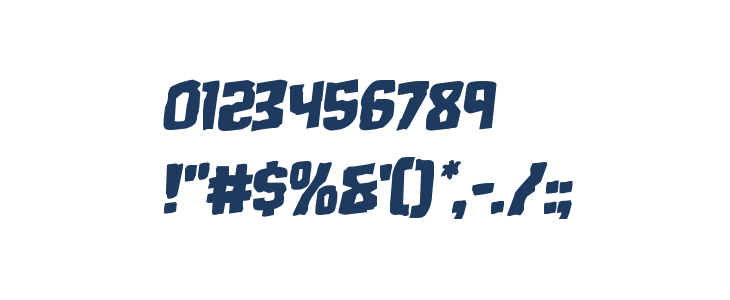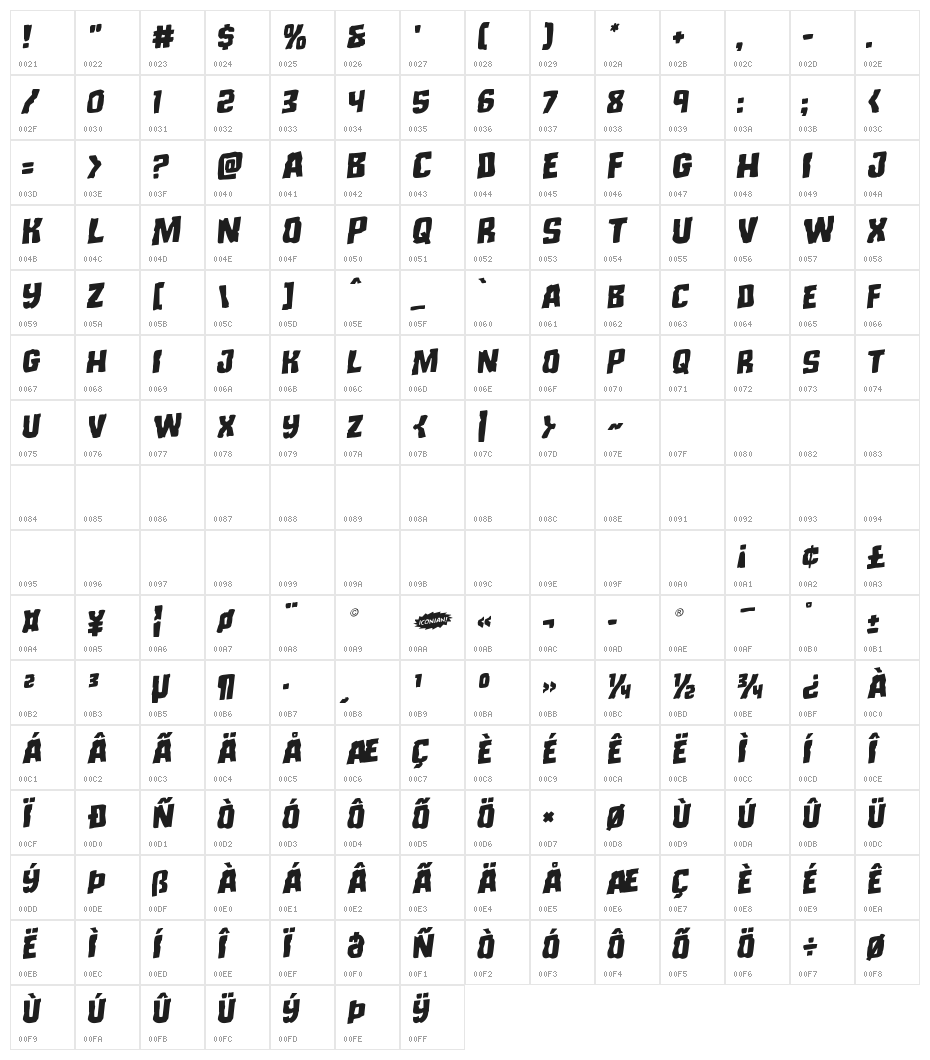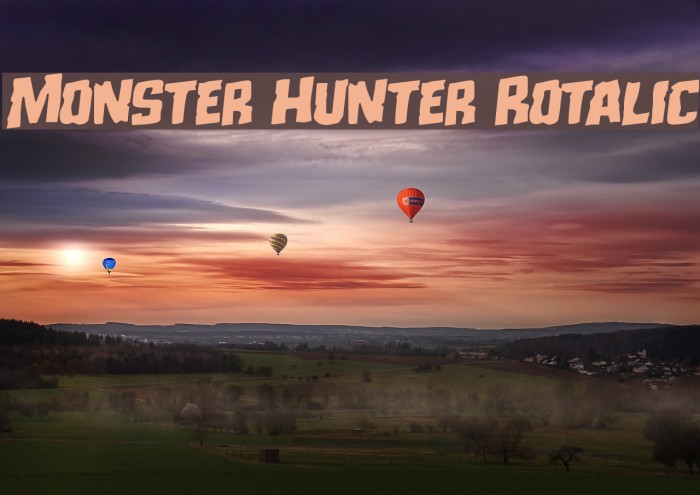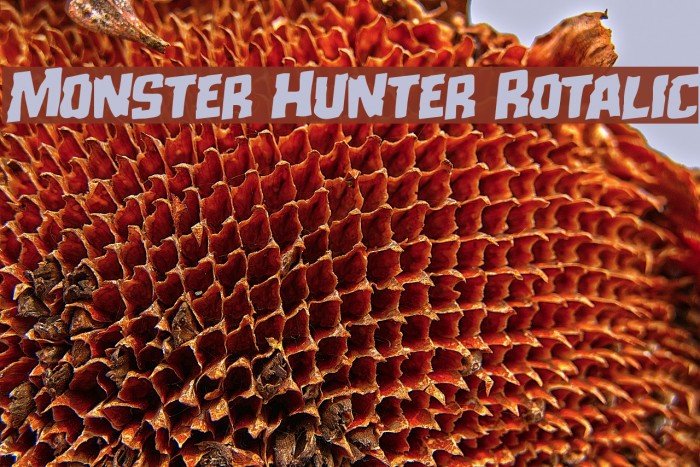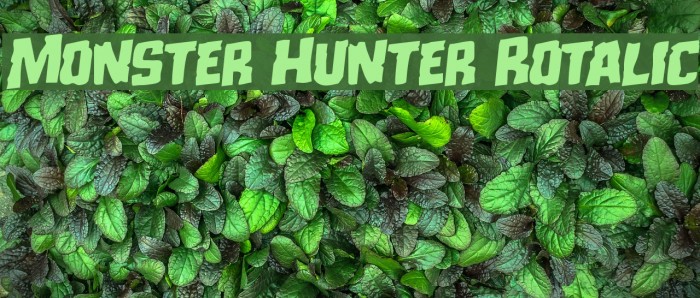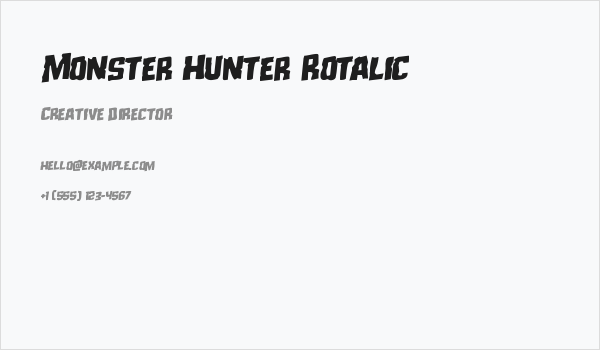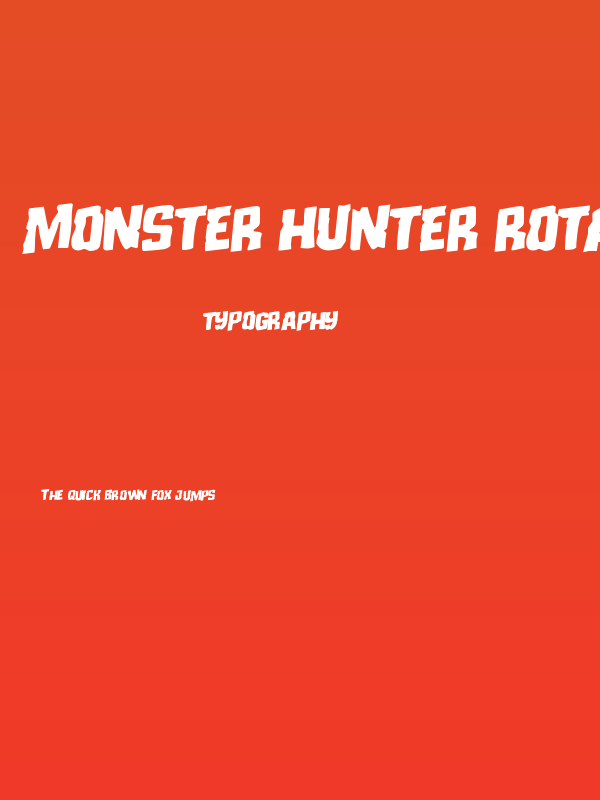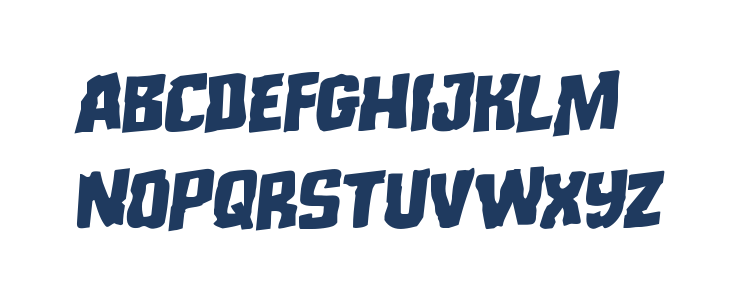
Monster Hunter Rotalic Font
Monster Hunter Rotalic Description
This font features a bold, dynamic style with a strong presence. The characters are heavily slanted, giving a sense of motion and energy. The strokes are thick and irregular, adding a rugged and adventurous feel. The uppercase and lowercase letters maintain a consistent weight, while the numbers and special characters follow the same bold and expressive design. This font is ideal for projects that require a strong, impactful typeface with a sense of action and excitement.
| Overall Style | Dynamic and adventurous |
| Proposed Projects | Perfect for video game titles, action movie posters, sports branding, and adventure-themed designs. |